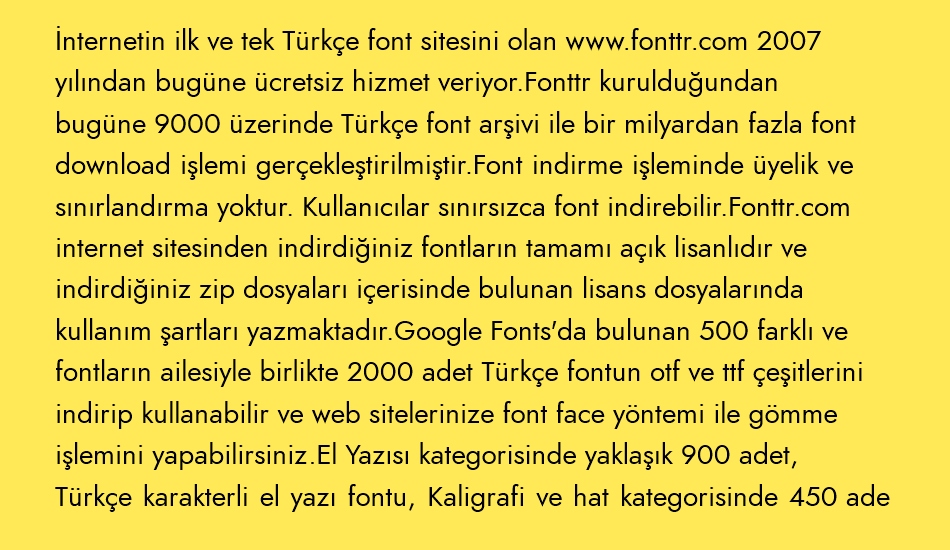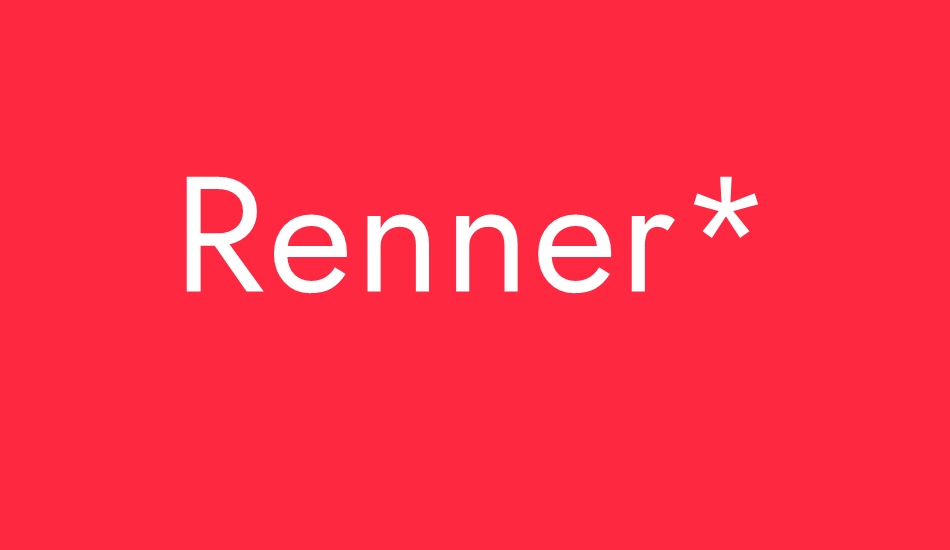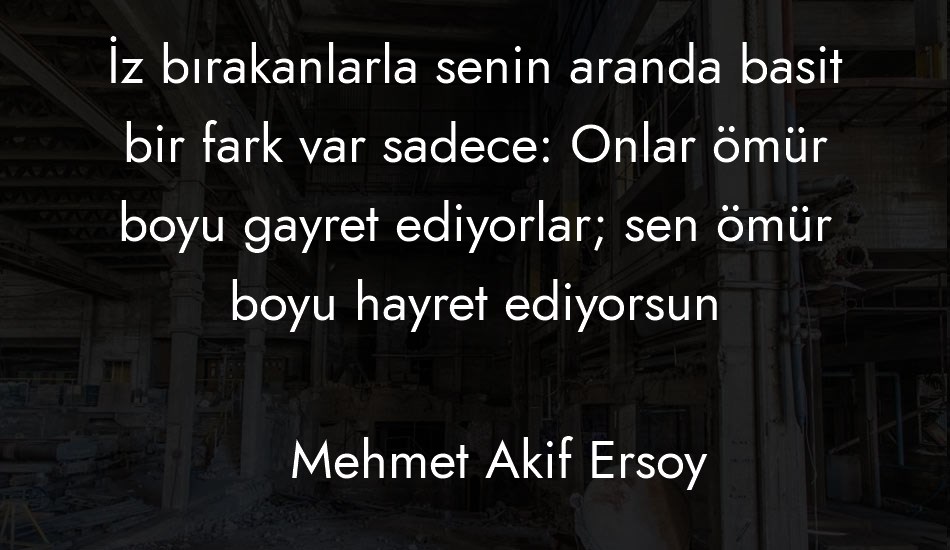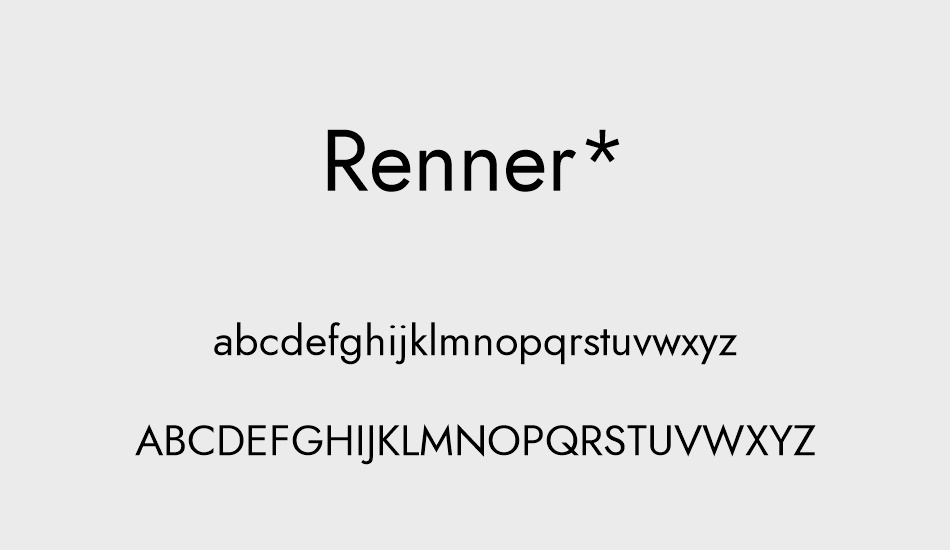
renner font
Renner* is a font for the digital age. It's based off of the work of Paul Renner, the designer of Futura. Renner* is an origonal font that aims to keep the attitude of Futura rather than the exact design. Futura was designed to be functional in its day and in that spirit, Renner* aims to be as functional as possible in the digital era. For that reason it deviates from the exact designs of Paul Renner, favoring, for example, a larger x-height. It also includes features, many of which would not be possible in the era of Paul Renner. Renner* has 9 weights, ranging from Hairline to Black. It can support many languages, includes stylistic alternatives, and both tabular and proportional numbers.
Renner* font